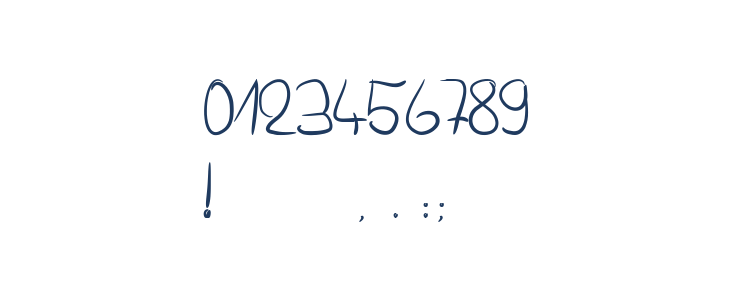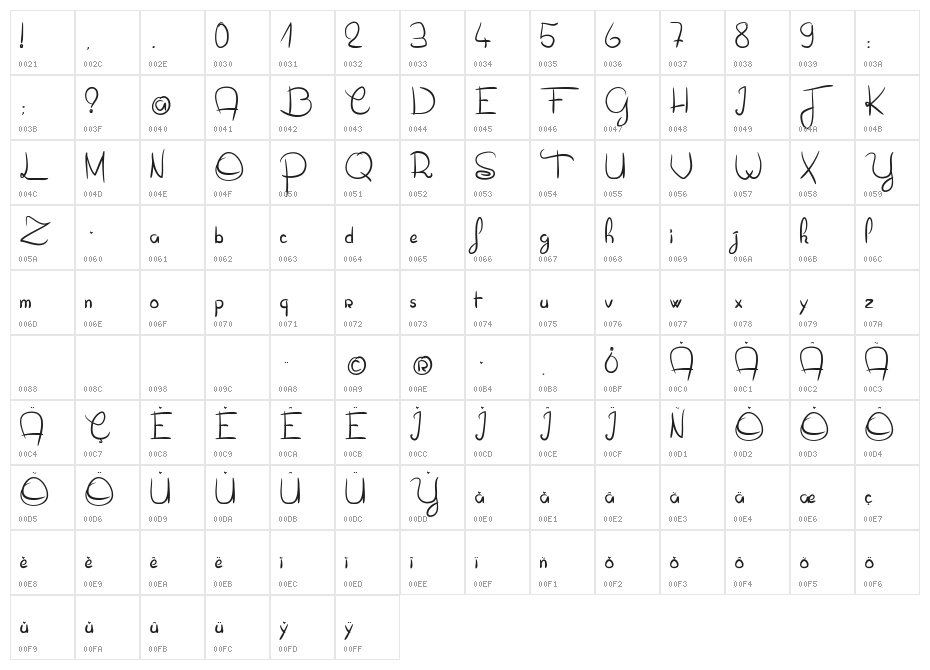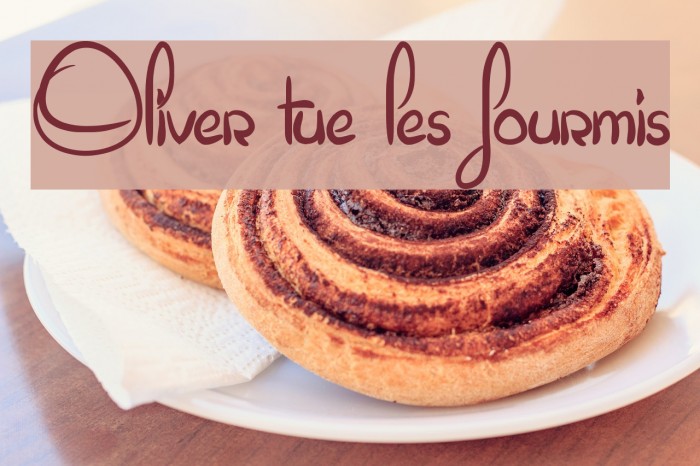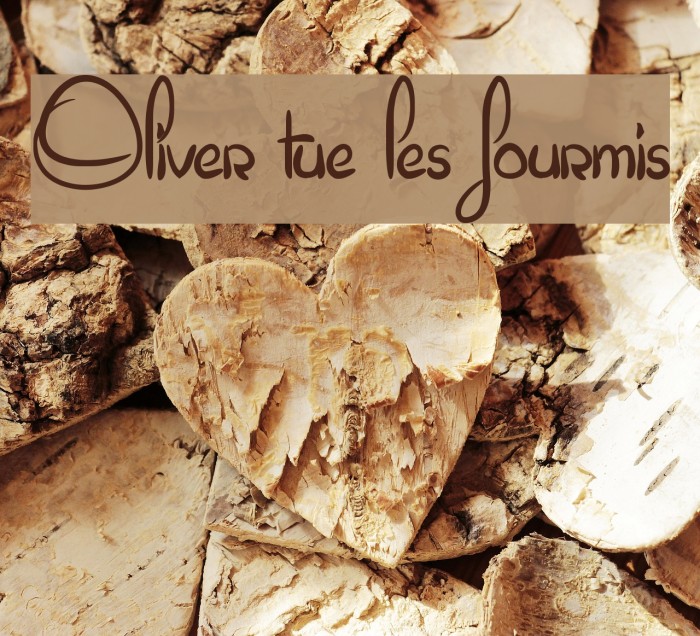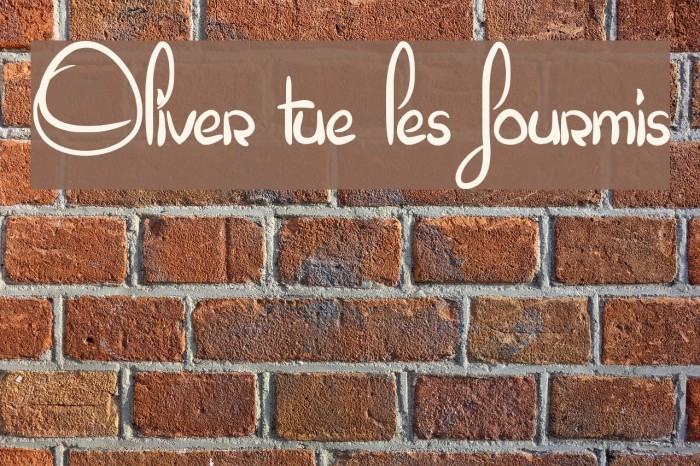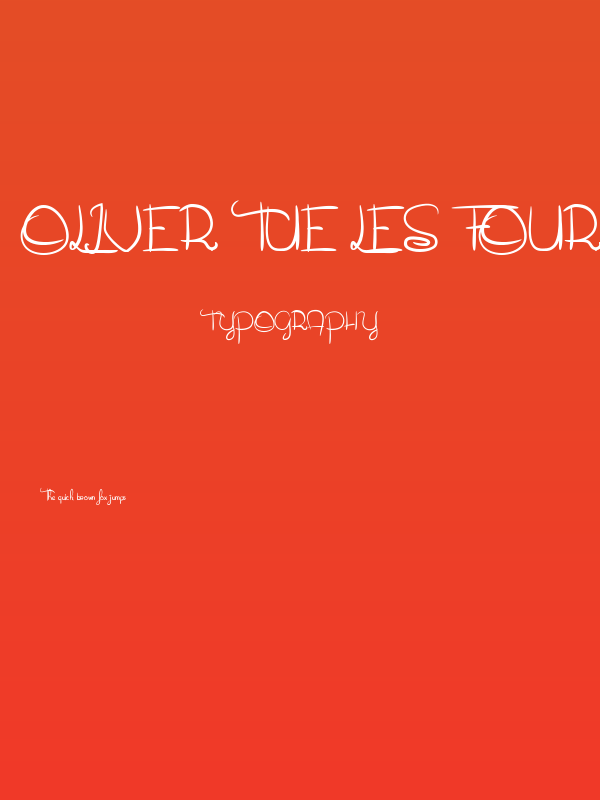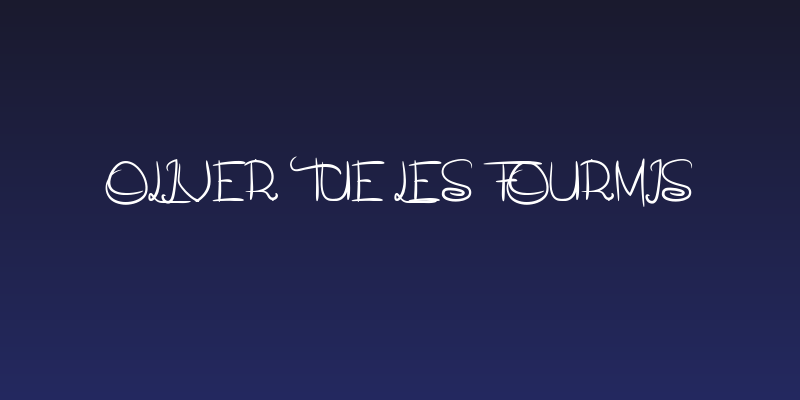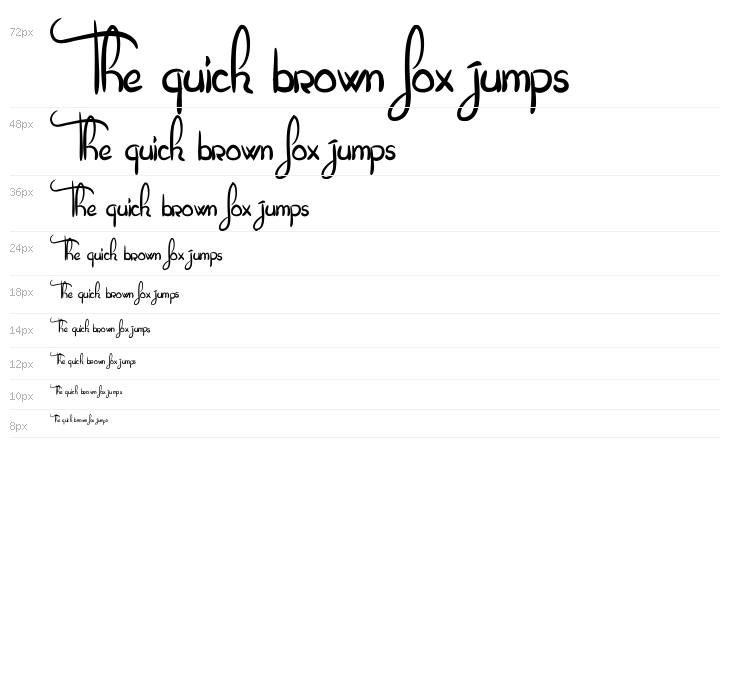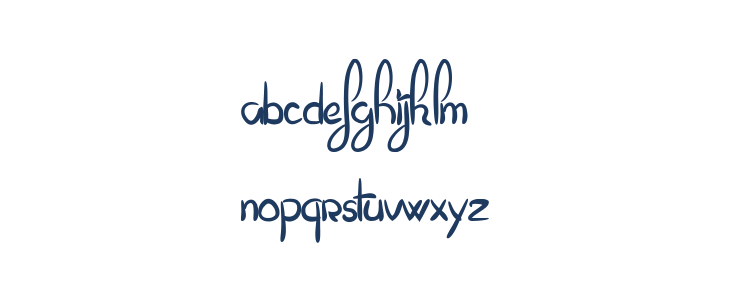
Oliver tue les fourmis Font
Oliver tue les fourmis Description
This font features a whimsical and playful design, characterized by its flowing, hand-drawn style. The uppercase letters exhibit a unique blend of curves and straight lines, creating an artistic and slightly irregular appearance. The lowercase letters maintain a consistent style, with elongated ascenders and descenders that add to the font's quirky charm. Numbers are crafted with the same playful touch, ensuring a cohesive look across all characters. The special characters, including punctuation marks, are designed to match the overall aesthetic, making this font ideal for creative projects.
| Proposed Projects | Ideal for children's book covers, playful branding, greeting cards, and creative posters. |